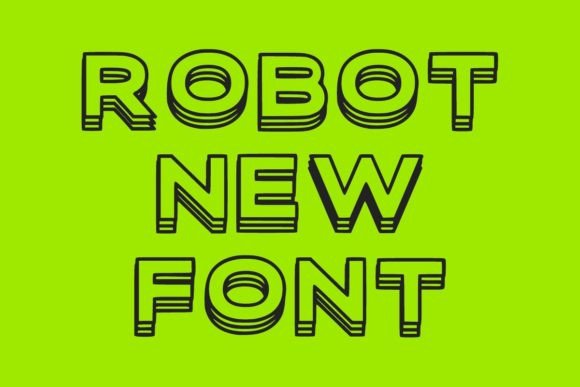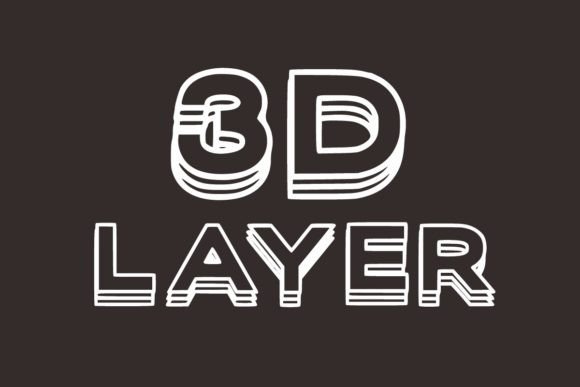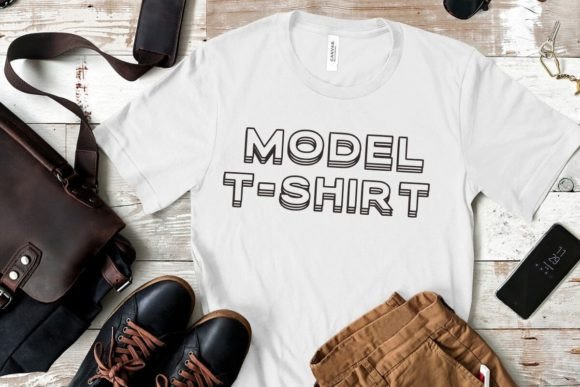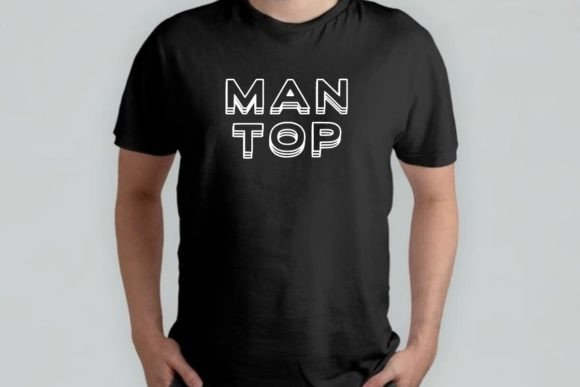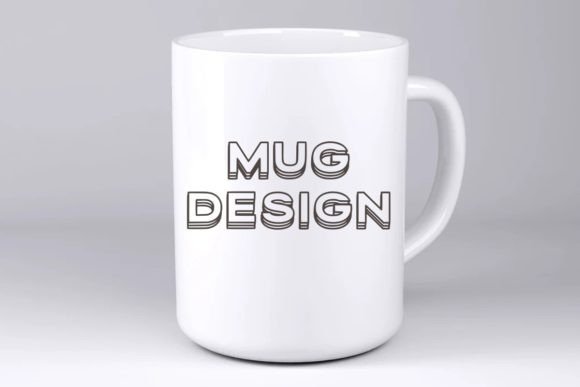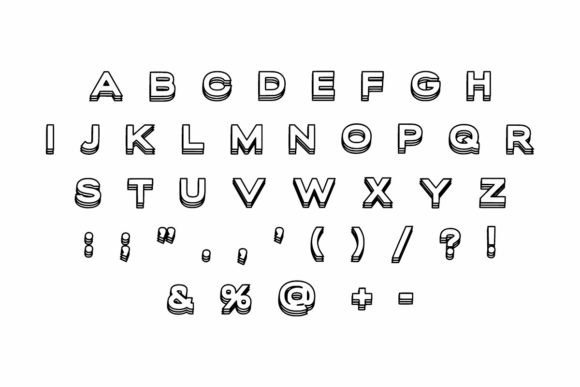
The Perfect Typography Solution
Remember that moment when you finally nailed down the perfect design concept, but it just needed something extra to make it truly pop? You know, that spark that takes your creation from good to great. For designers, finding the right font can be the difference between a decent design and a showstopper.
Enter the Best Font 3D Font – a 3D and Modern display font designed to elevate any creation. With its strong and assertive typography, this font is an incredible asset to your fonts’ library, capable of taking your posters, price tags, party invitations, and more to the next level.
Whether you’re a seasoned designer or just starting out, the Best Font 3D Font is a valuable addition to your toolkit. Its versatility and modern aesthetic make it the perfect solution for a wide range of design projects, from commercial to personal.
Key Features of Best Font 3D Font
- Character Set: Includes a wide range of characters, including uppercase and lowercase letters, numbers, punctuation marks, and special characters, making it suitable for various applications.
- Unique Characteristics: Features a unique 3D design aesthetic, adding a touch of sophistication and depth to text-based designs, and includes customizable bevel and emboss effects.
Review of “Best Font 3d Font”
Overall, I think “Best Font 3d Font” has some potential, but it falls short in a few areas. Here are some of my thoughts:
- The font is indeed 3D, which is a great feature for creating visually appealing graphics and designs.
- The font is available in a variety of styles and sizes, which makes it versatile and easy to use.
- The font is a bit too bold and overpowering for some designs. It can be overwhelming and distracting.
- The font lacks a subtle, nuanced look. It’s either all or nothing – there’s no in-between.
- The font is not suitable for body text. It’s best used for headings, titles, and other large, attention-grabbing elements.
“Best Font 3d Font” is a solid choice for designers who want to add some visual interest to their projects. However, it’s not a one-size-fits-all solution. Use it sparingly and with caution, and make sure it’s not overpowering your design. With a bit more refinement and nuance, this font could be truly amazing.
Use Best Font 3D Font to add a touch of sophistication to your designs. It’s perfect for:
1. Creating eye-catching headlines.
2. Adding depth to 2D designs.
3. Creating engaging presentations and documents.
Remember to experiment with different font sizes, colors, and settings to get the most out of Best Font 3D Font.